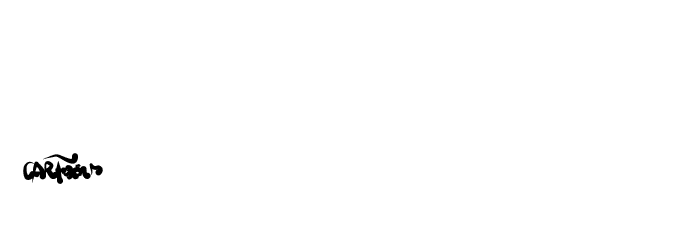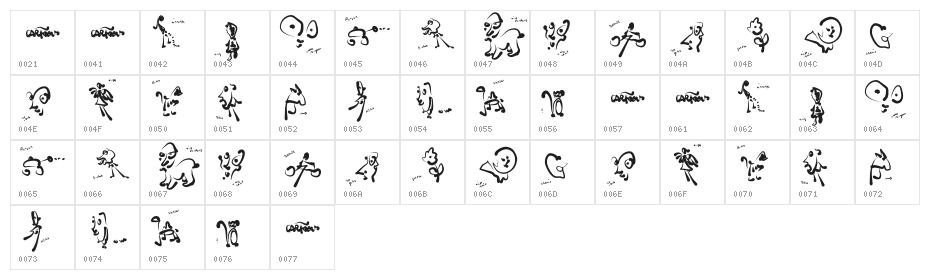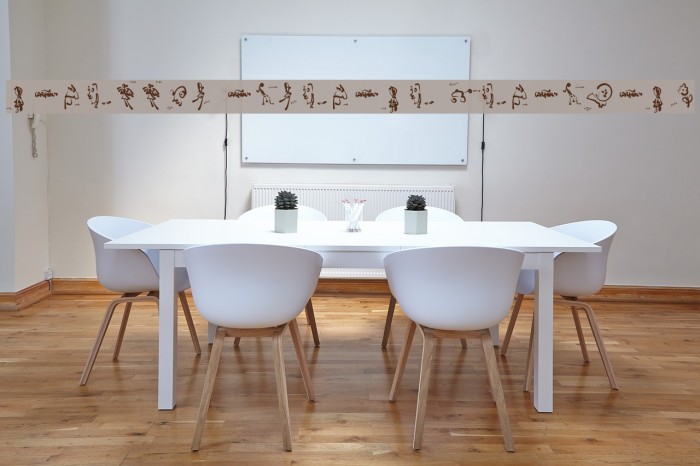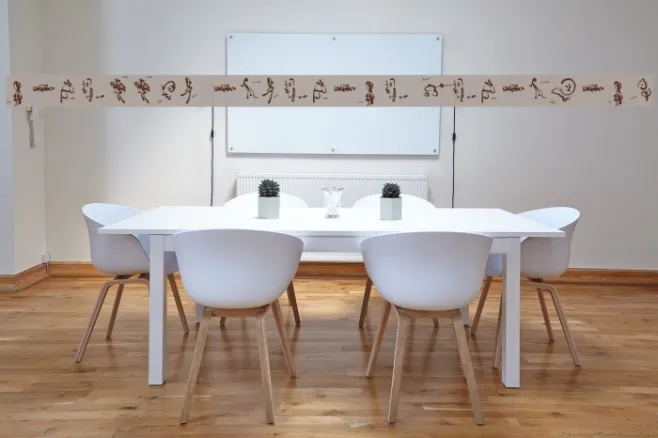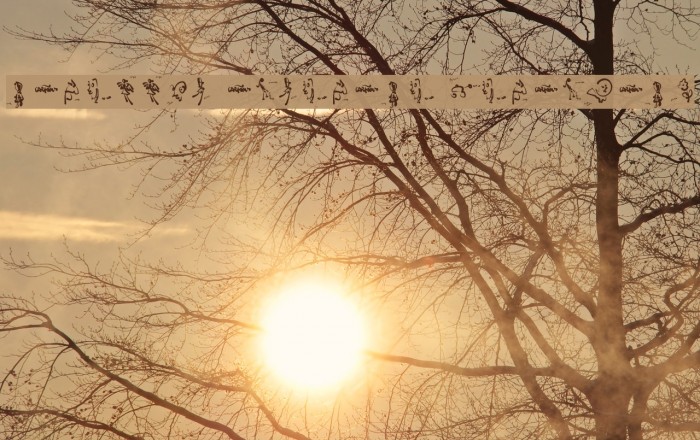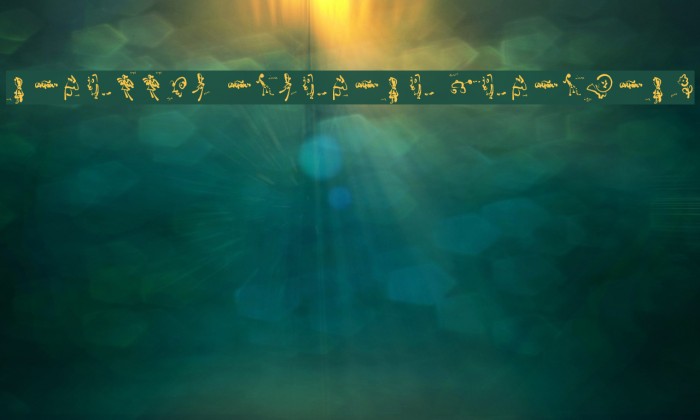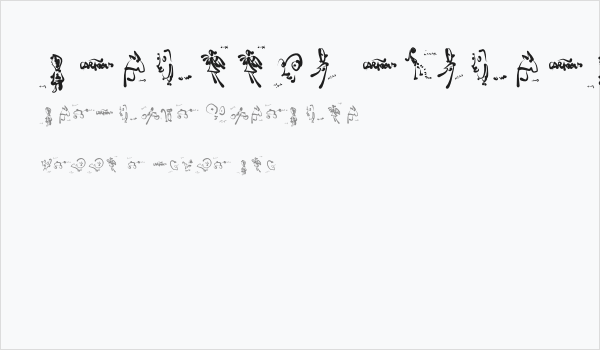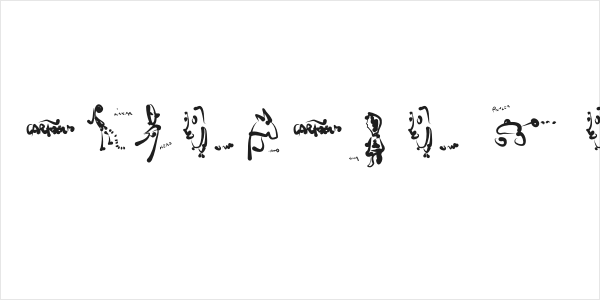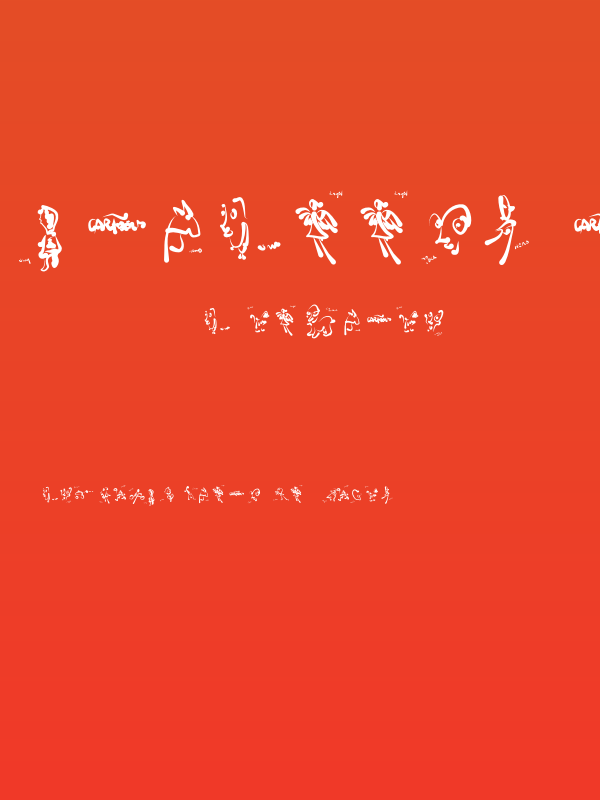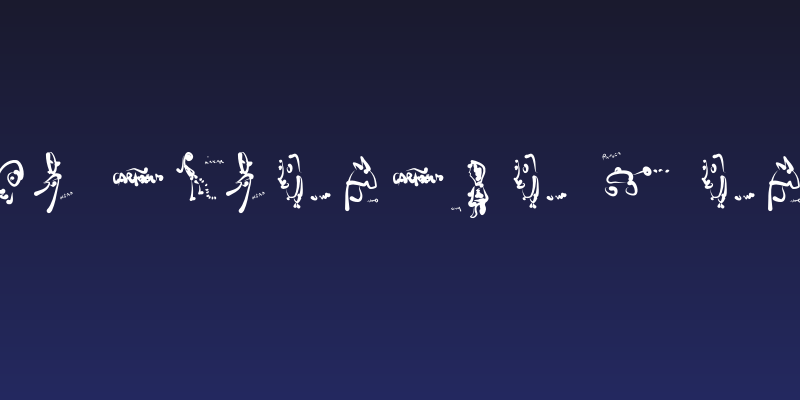
Cartoons Abstract ExtraBlack Font
Cartoons Abstract ExtraBlack Description
This font is a playful and abstract representation of characters, where each letter and symbol is creatively depicted as a cartoon-like figure. The design is highly artistic, with exaggerated features and whimsical elements that give it a unique and entertaining appearance. The characters are bold and expressive, capturing a sense of movement and personality. This font is not meant for traditional readability but rather for decorative purposes, where the visual impact is prioritized over clarity. Each character is distinct, with a variety of shapes and forms that resemble doodles or sketches, making it ideal for projects that require a fun and imaginative touch.
| Use Case | Logos, Posters, Artistic projects |
| Proposed Projects | Ideal for children's book illustrations, playful branding, creative posters, and any project that requires a fun and artistic touch. |